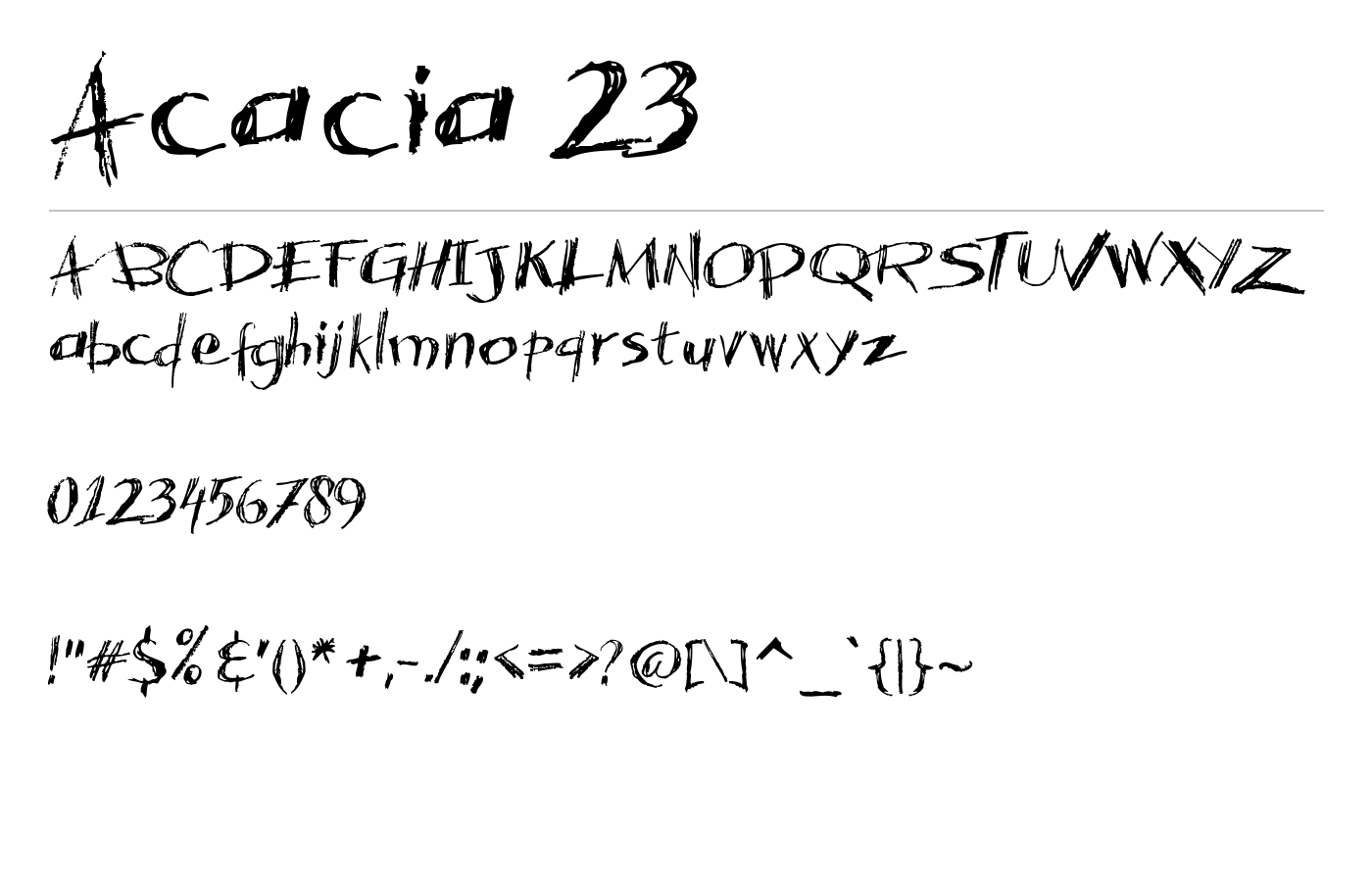
Acacia 23 is a rough, hand-drawn script font with an expressive, edgy personality. Its irregular, textured strokes give it a raw, artistic feel, making it ideal for creative projects, eye-catching headlines, and designs that want to convey a sense of individuality or rebellious spirit. This font works best in branding, posters, and other visual media where a bold, unconventional look is desired.
Acacia 23 Font
About Acacia 23 Font